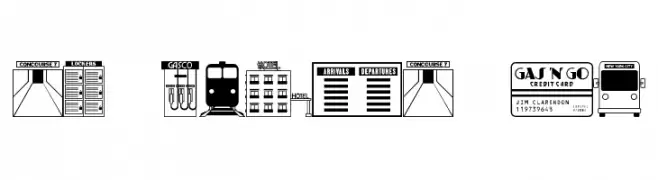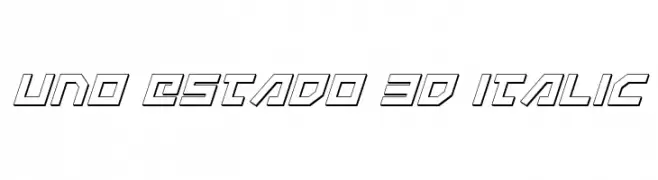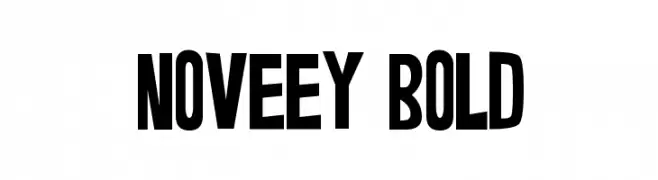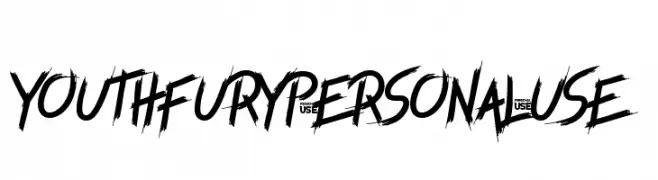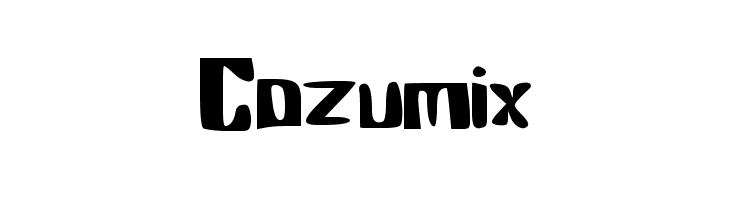
Decorative font with travel-themed icons.
A bold, geometric font with a futuristic and edgy design.
A bold, 3D geometric font with a futuristic and italicized style.
A bold, modern typeface with thick strokes and a slightly condensed style.
Bold, graphic display font inspired by street art and propaganda.
A modern, semi-bold italic sans-serif font with medium contrast and normal spacing.
A decorative and abstract font with intricate, artistic characters.
A bold, edgy font with sharp, brush-like strokes.